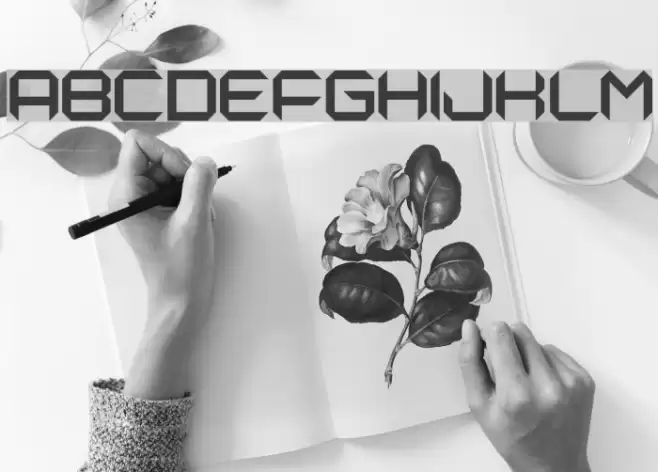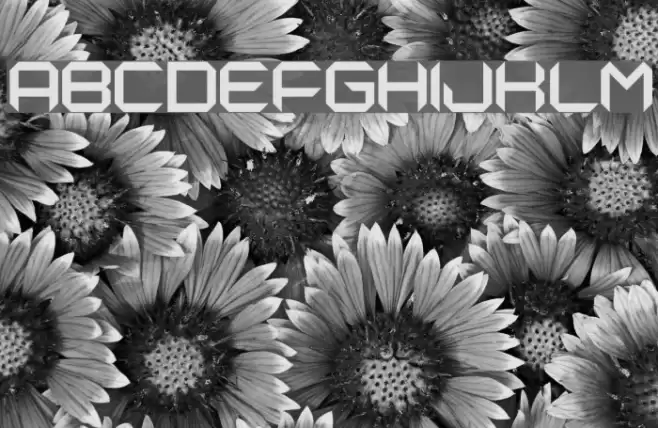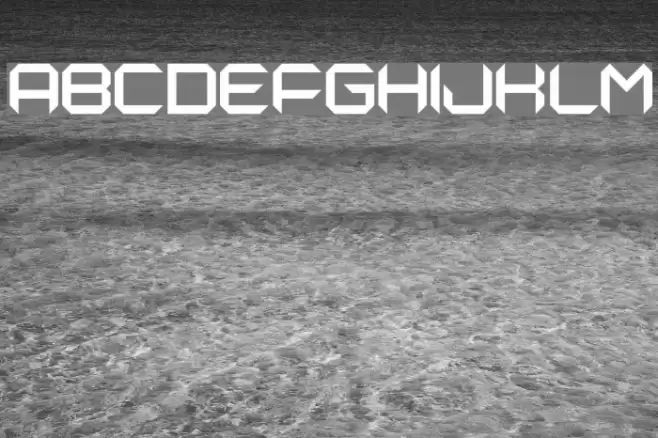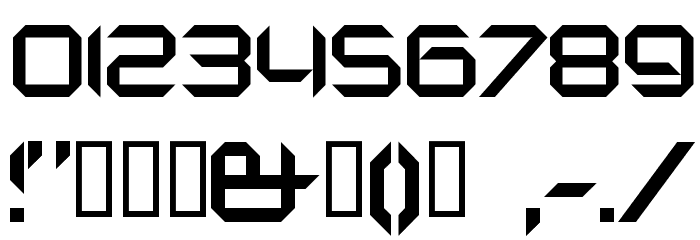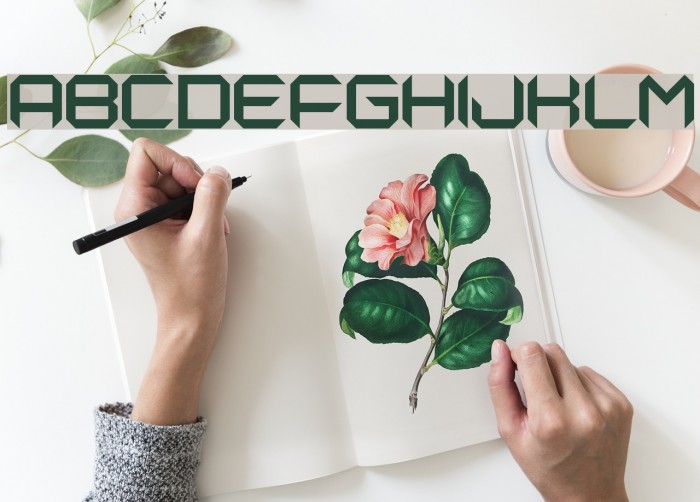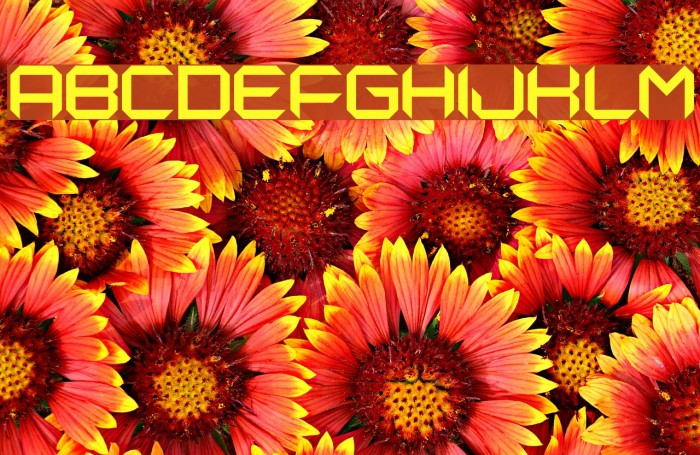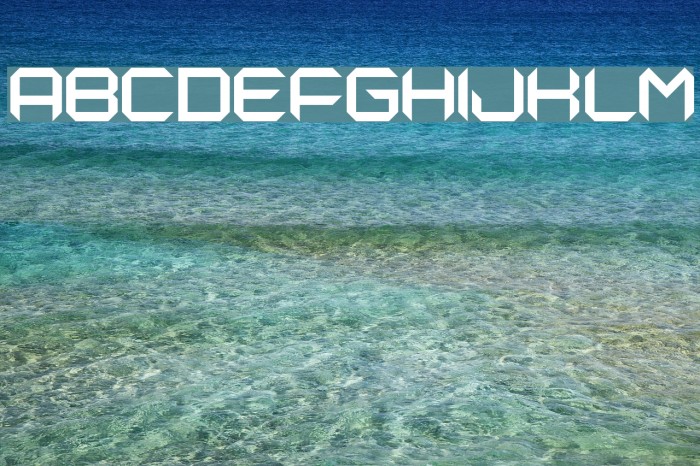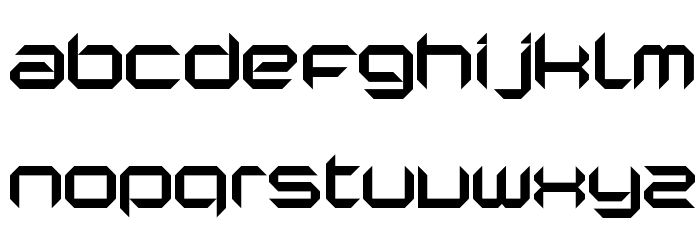
Nano Font
Nano Description
This font features a futuristic and angular design, characterized by sharp edges and geometric forms. The uppercase and lowercase letters maintain a consistent style, with a bold and striking appearance. The numbers and special characters follow the same angular theme, ensuring uniformity across all glyphs. The font's unique style makes it stand out, with a modern and tech-inspired aesthetic that is both eye-catching and distinctive.
A futuristic, angular font with a bold and geometric design from Uncategorized fonts.